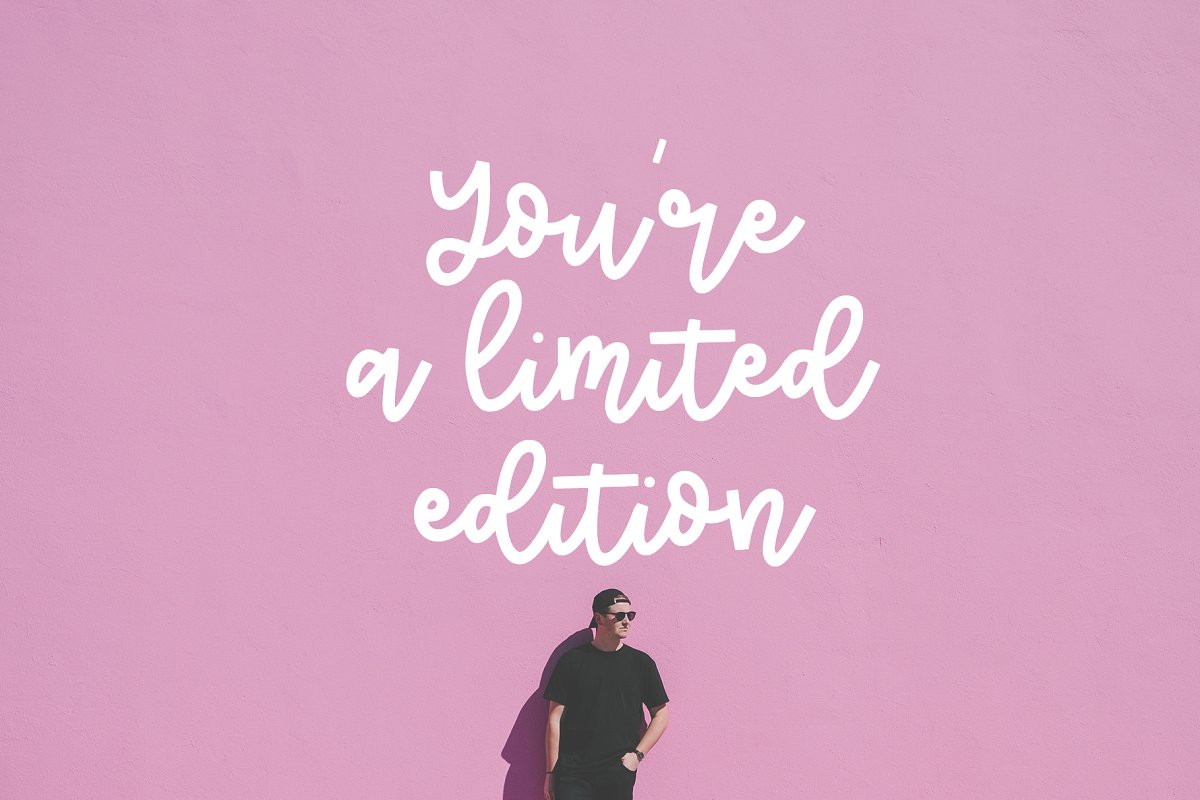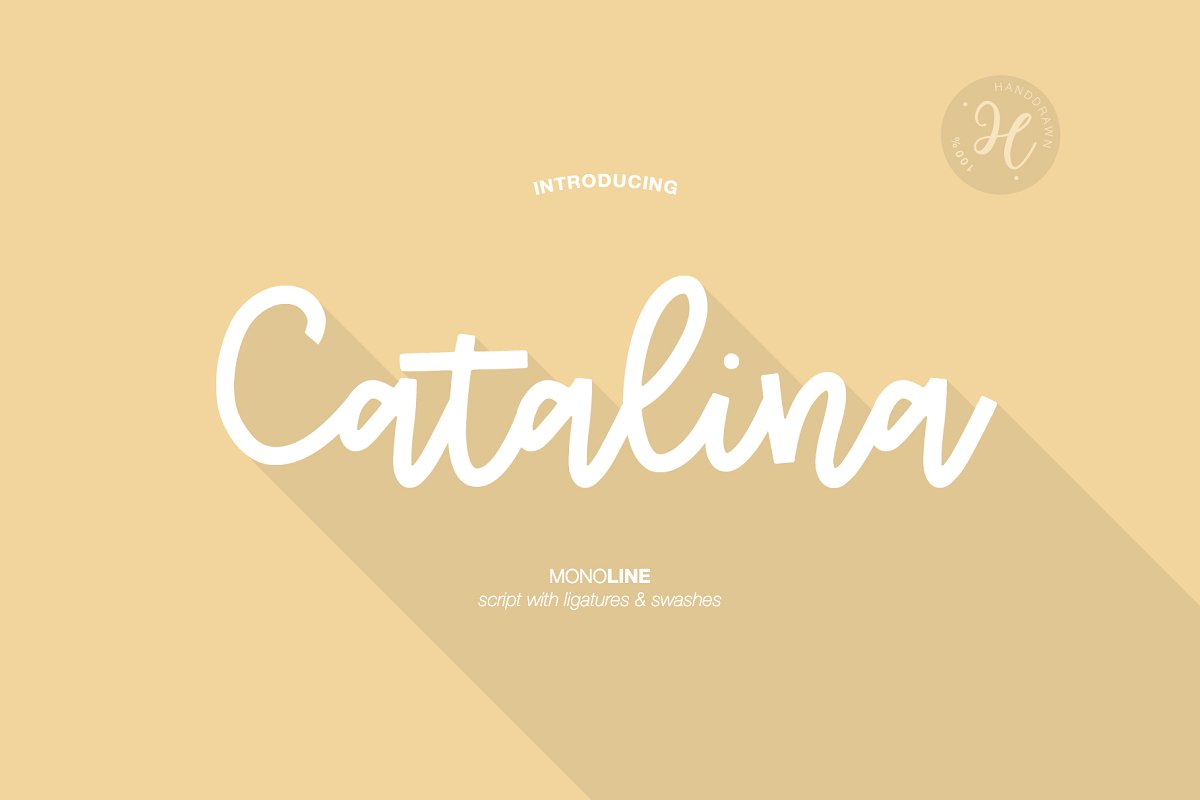
CATALINA MONOLINE FONT
Hello dears! This is my new unique fancy monoline script. Here is that: floating baseline, ligatures and multilingual support 🙂
Catalina Monoline will look beautiful on holiday invitations, wedding invites and stationery, logos, and more.